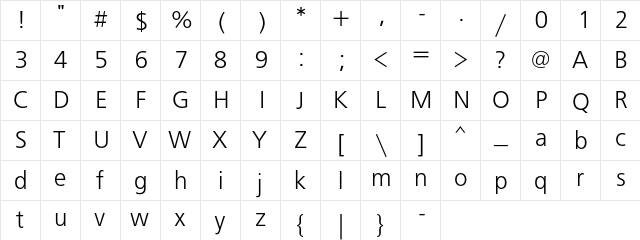
Noah Regular
Design Context for Noah Typeface
Noah is a composed and adaptable typeface that performs quietly and consistently across a wide range of design contexts.